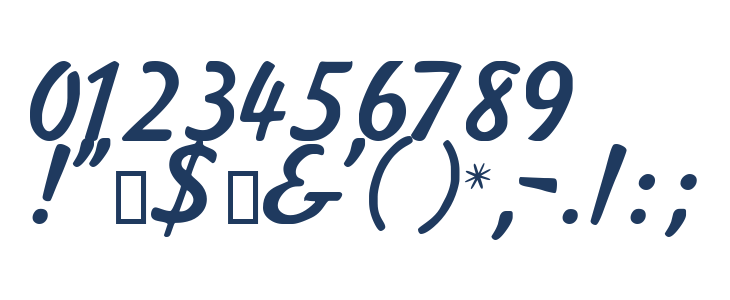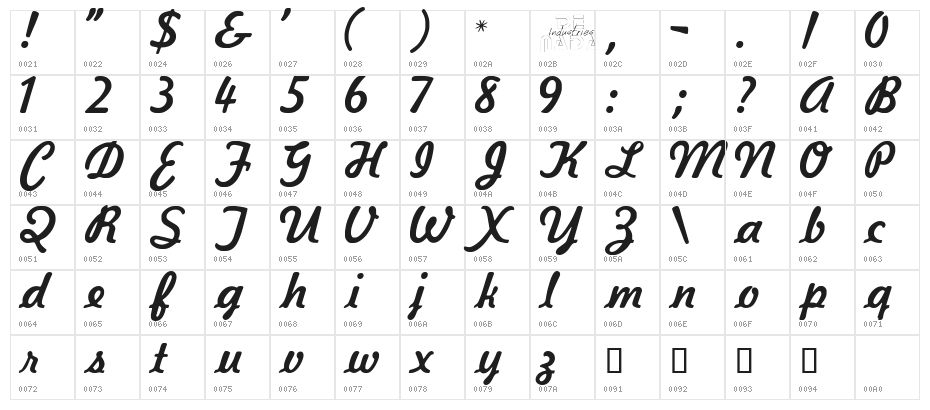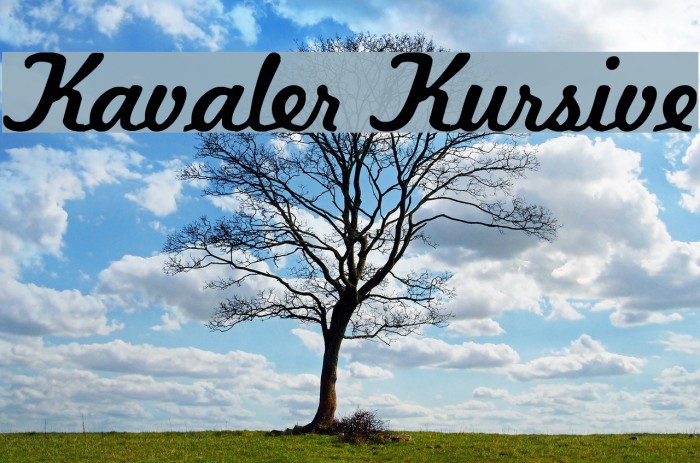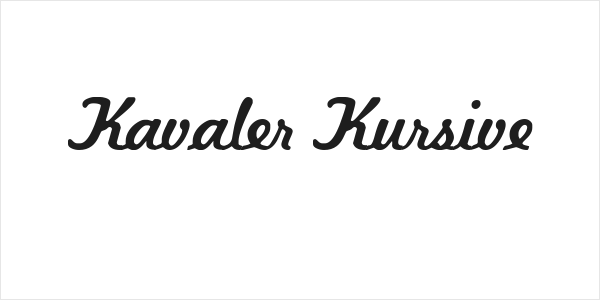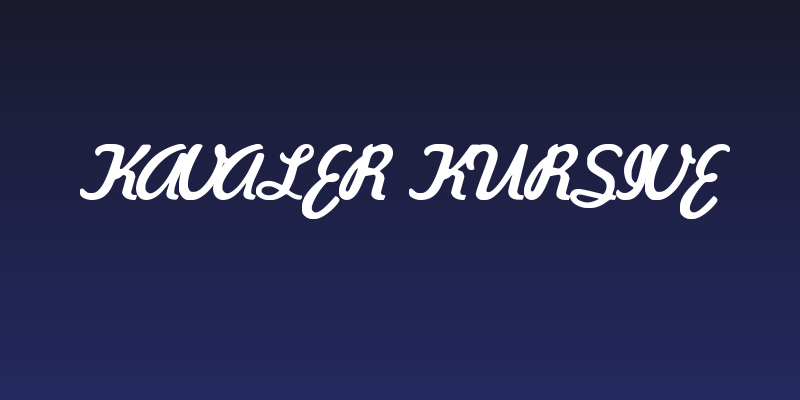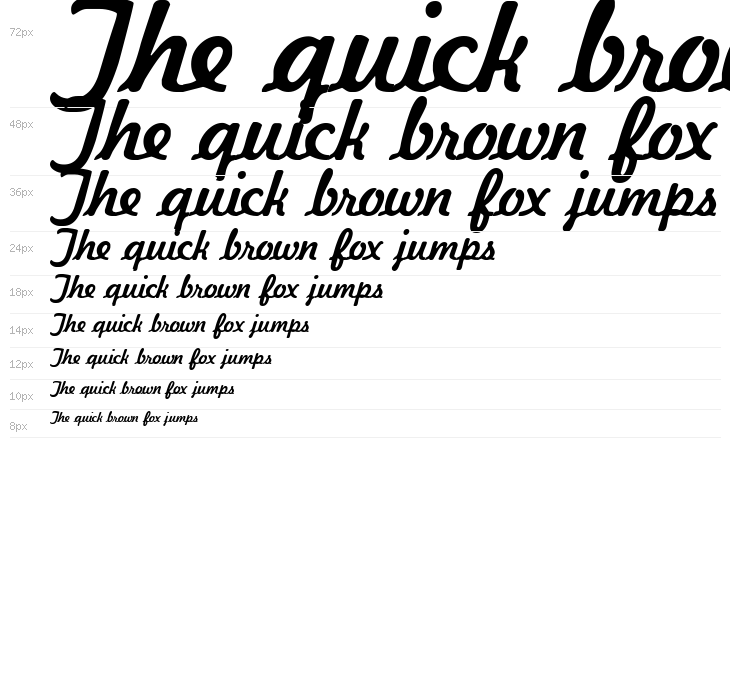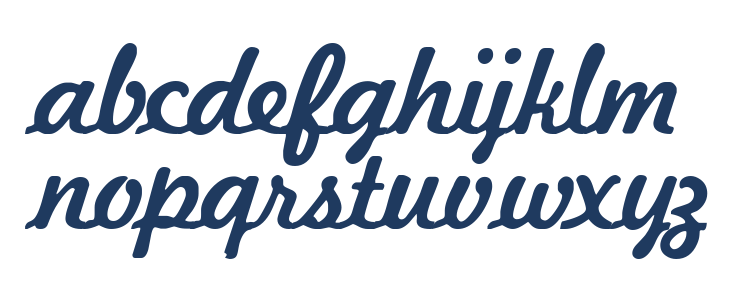
Kavaler Kursive Font
Kavaler Kursive Description
This font features a flowing, cursive style with smooth, rounded edges and a consistent slant, giving it a dynamic and elegant appearance. The characters are interconnected, enhancing the fluidity and readability of the text. Uppercase letters are bold and prominent, while lowercase letters maintain a consistent height and width, contributing to a harmonious overall look. The numerals are clear and distinct, matching the cursive style of the alphabet. Special characters are well-integrated, maintaining the font's cohesive aesthetic. This font is ideal for projects that require a touch of sophistication and style.
| Proposed Projects | Ideal for wedding invitations, greeting cards, elegant branding, and decorative headlines. |